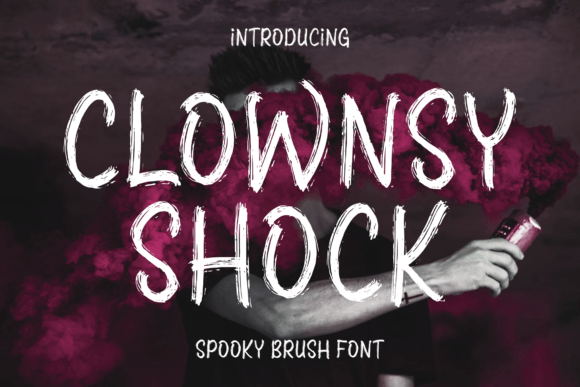
Unleash the Spookiness: Introducing Clownsy Shock Font
Are you a designer or crafter looking for a unique and eye-catching font to add a touch of spookiness to your projects? Look no further than Clownsy Shock Font, a spooky brush font that’s perfect for a wide range of applications. In this article, we’ll dive into the features and benefits of Clownsy Shock Font, and explore how you can use it to take your designs to the next level.
What is Clownsy Shock Font?
Clownsy Shock Font is a specially designed font that’s perfect for creating spooky and eye-catching designs. With its unique brush script style, this font is sure to add a touch of personality to any project. Whether you’re working on a logo, branding project, or product packaging, Clownsy Shock Font is the perfect choice.
Features of Clownsy Shock Font
- Unique Brush Script Style: Clownsy Shock Font features a unique brush script style that’s perfect for creating spooky and eye-catching designs.
- High-Quality Design: This font is designed with high-quality and precision, ensuring that it looks great in any size or application.
What Can I Use Clownsy Shock Font For?
Clownsy Shock Font is a versatile font that can be used for a wide range of projects, including:
- Logos and Branding Projects: Create a unique and eye-catching logo or branding project with Clownsy Shock Font.
- Homeware Designs: Add a touch of spookiness to your homeware designs, such as mugs, pillows, and tote bags.
- Product Packaging: Make your product packaging stand out with Clownsy Shock Font.
- Mugs and Drinkware: Create unique and eye-catching designs for mugs, water bottles, and other drinkware.
- Quotes and Posters: Add a touch of spookiness to your quotes and posters with Clownsy Shock Font.
- Shopping Bags and T-Shirts: Create unique and eye-catching designs for shopping bags and t-shirts.
- Book Covers and Name Cards: Use Clownsy Shock Font to create eye-catching book covers and name cards.
- Invitation Cards and Greeting Cards: Add a touch of spookiness to your invitation cards and greeting cards.
- Labels and Photography: Use Clownsy Shock Font to create unique and eye-catching labels and watermarks for your photography.
Why Choose Clownsy Shock Font?
There are many reasons why you should choose Clownsy Shock Font for your next project. Here are just a few:
- Unique and Eye-Catching: Clownsy Shock Font is a unique and eye-catching font that’s sure to grab attention.
- High-Quality Design: This font is designed with high-quality and precision, ensuring that it looks great in any size or application.
In conclusion, Clownsy Shock Font is a unique and eye-catching font that’s perfect for designers and crafters looking to add a touch of spookiness to their projects. With its high-quality design, ease of use, and affordability, this font is a great choice for a wide range of applications. Whether you’re working on a logo, branding project, or product packaging, Clownsy Shock Font is sure to help you create a design that stands out from the crowd.